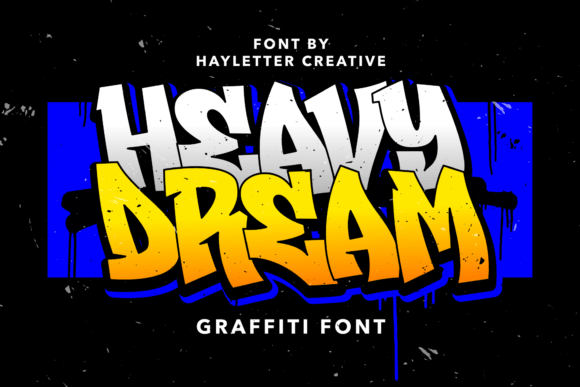
The Perfect Blend of Street Style and Typography
Have you ever been out in the city at night, surrounded by the vibrant colors and energetic atmosphere of street art? The sounds of music, the smell of food, and the murmur of conversations all blend together to create an unforgettable experience. For many designers, this is the moment when creativity strikes, and the desire to capture the essence of the city on paper is born.
This is where the Heavy Dream Font comes in – a bold and striking graffiti font that’s perfect for designers looking to add a touch of urban style to their work. With its strong and edgy feel, Heavy Dream Font is the ideal choice for anyone looking to create designs that exude energy and creativity.
Heavy Dream Font Key Features
- Font Family: Heavy Dream Font is a sans-serif font family with a unique, distressed look.
- Unique Characteristics: Features a distressed, hand-drawn look with bold lines and a rough texture, perfect for creating a rugged, industrial feel.
Heavy Dream Font Review
Overall, I think the Heavy Dream Font has some great qualities that make it perfect for certain design projects. ✨ The font is incredibly bold and eye-catching, making it ideal for headings and titles. The designer has done a great job in creating a font that is both modern and edgy, which is perfect for contemporary designs.
Another thing that I appreciate about the Heavy Dream Font is its versatility. ✨ It can be used in a variety of contexts, from fashion and beauty to technology and gaming. The font is also highly customizable, allowing designers to adjust the weight, size, and color to suit their needs.
- ⚠️ The font may be too bold for some projects, overpowering the rest of the design. It’s essential to use it sparingly to avoid overwhelming the user.
- ⚠️ The font may not be suitable for projects that require a more subtle or elegant look. It’s best to use it for bold and statement-making designs.
- ⚠️ The font may not be compatible with all devices or operating systems, which could lead to display issues.
Overall, I think the Heavy Dream Font is a great addition to any designer’s toolkit. While it has some limitations, it’s perfect for projects that require a bold and eye-catching look. With a little creativity and experimentation, designers can create some amazing designs using this font.
The Heavy Dream Font is ideal for creating bold and eye-catching headlines, titles, and graphics. It works well for:
- Music and art posters
- Social media graphics
- Brand identities and logos
Remember to use the font in moderation to avoid overwhelming the design. Experiment with different font sizes, colors, and combinations to achieve the desired effect.